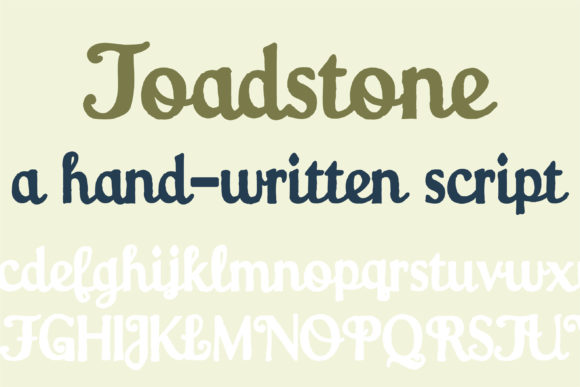
Prepare to be spellbound by ZP Toadstone Font, a captivating script family that will ignite your imagination and elevate your designs to unprecedented heights. This remarkable font is meticulously crafted to emulate the elegant beauty of a flourished print-style uppercase, offering a touch of timeless sophistication to your creative endeavors.
Indulge in the unparalleled versatility of ZP Toadstone Font, a font family that effortlessly adapts to a myriad of design styles, from captivating invitations and heartwarming greeting cards to stunning branding materials and eye-catching social media posts. Experience its enchanting handwritten aesthetic, perfect for adding a touch of intimacy and warmth to your projects, leaving an unforgettable impression on your audience.
Step into the realm of Print on Demand with ZP Toadstone Font, as its innate charm captivates your customers and transforms your designs into objects of desire. Its sophisticated script lettering adds an irresistible allure to T-shirts, mugs, and other merchandise, enhancing their appeal and making them stand out from the crowd. Watch as your sales soar and your brand flourishes with the enchanting power of this extraordinary font family.
Immerse yourself in the world of boundless creativity with ZP Toadstone Font. Let its graceful strokes inspire your imagination and guide your designs towards excellence. Embrace the allure of this captivating script, and let it infuse your projects with a touch of timeless elegance and contemporary flair.